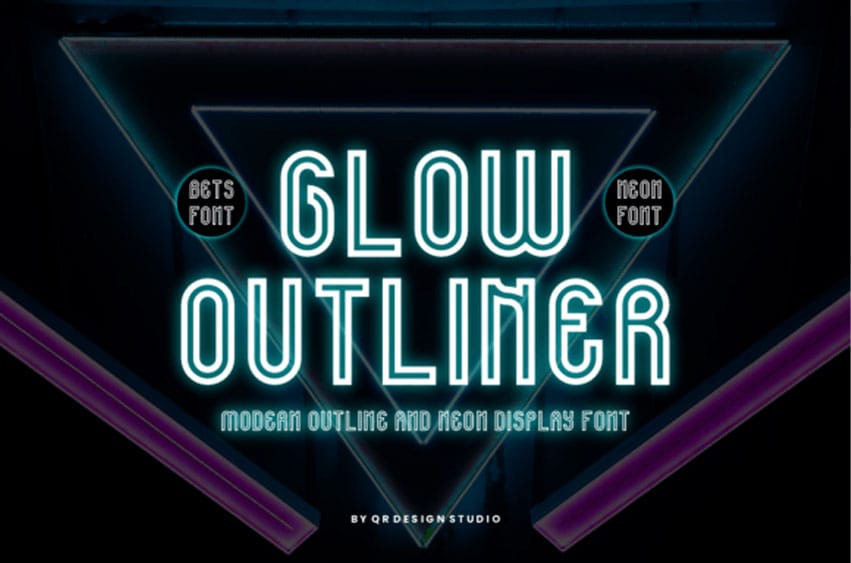
Glow Outliner Font is an incredibly unique sans serif font.
Masterfully designed to become a true favorite, this font has the potential to bring each of your creative ideas to the highest level!